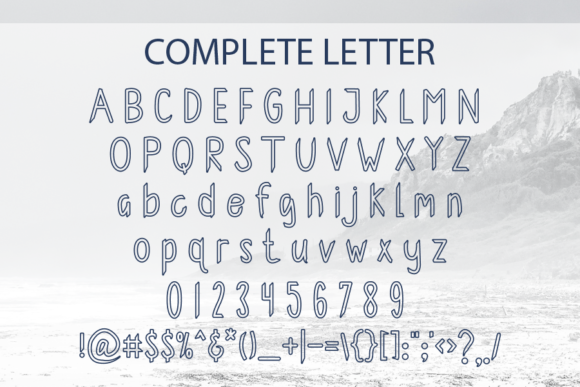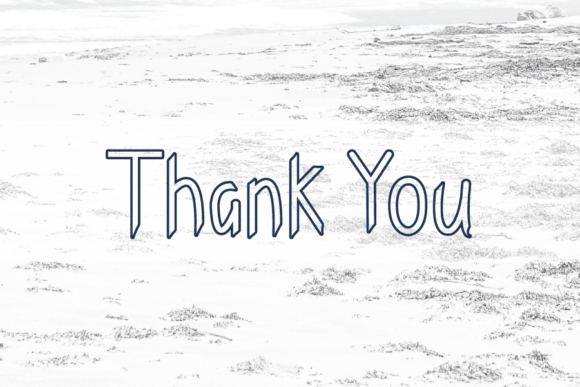
Introduction to Nathan Grey Font
Nathan Grey is a minimal and neat display font.
Key Features of Nathan Grey Font
Why Choose Nathan Grey Font?
Nathan Grey Font offers exceptional quality and versatility, making it a valuable addition to your design toolkit. Whether you’re creating for personal projects or commercial use, Nathan Grey Font delivers professional results.